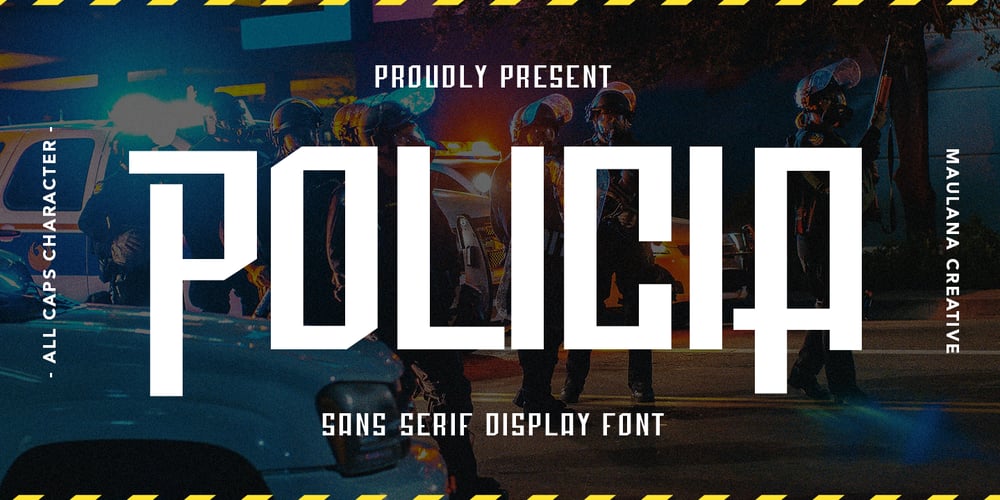
MC Policia
MC Policia font
MC Policia Font Family was designed by Gilang Maulana and published by Maulana Creative. MC Policia contains 1 styles and family package options. Policia is a modern Decorative sans serif Display font. Bold stroke, fun character with a bit of ligatures and alternates. To give you an extra creative work. Policia font support multilingual more than 100+ language. This font is good for logo design, Social media, Movie Titles, Books Titles, a short text even a long text letter and good for your secondary text font with script or serif. Make a stunning work with Policia font.Cheers,Maulana Creative